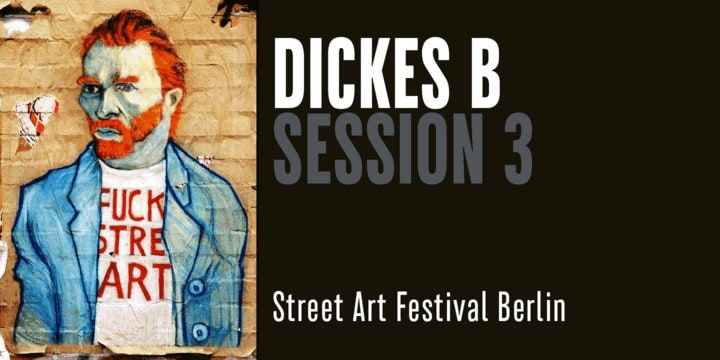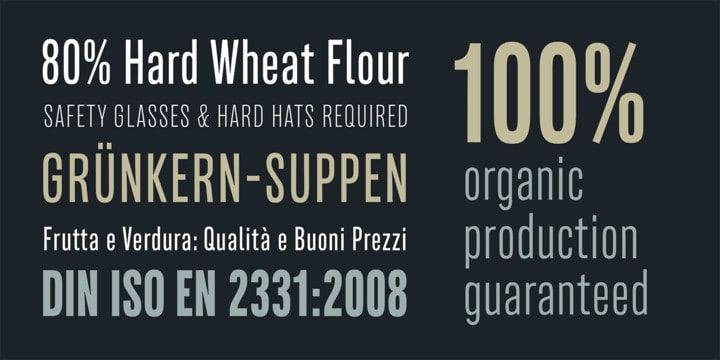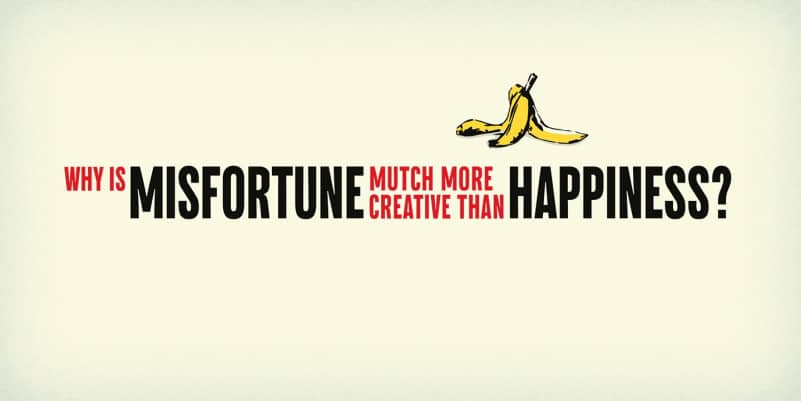
Bonnet Grotesque Nr Sans Serif Font
Bonnet Grotesque Nr Sans Serif Font is a sans serif Typeface that looks modern, clean and minimalist. This font has 5 styles: Thin, Light, Regular, Medium, and Bold. It’s designed and shared by astype. Since the release of Wood Bonnet Grotesque Nr.4 the typeface became popular for packaging and adverts. But the font styles were limited to one worn and one clean font in a medium weight only.